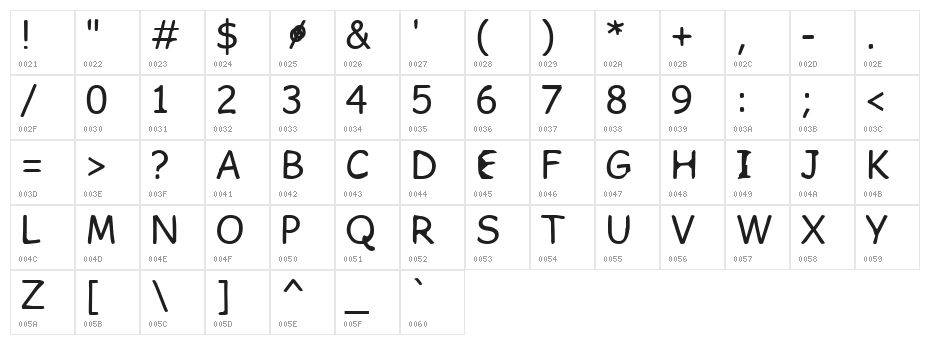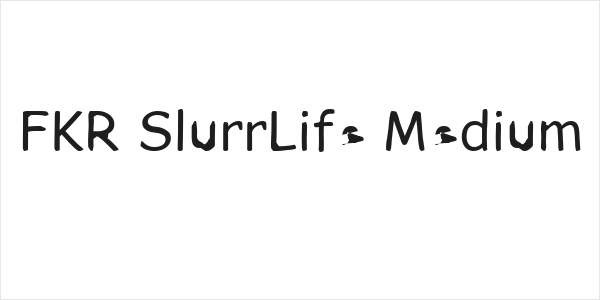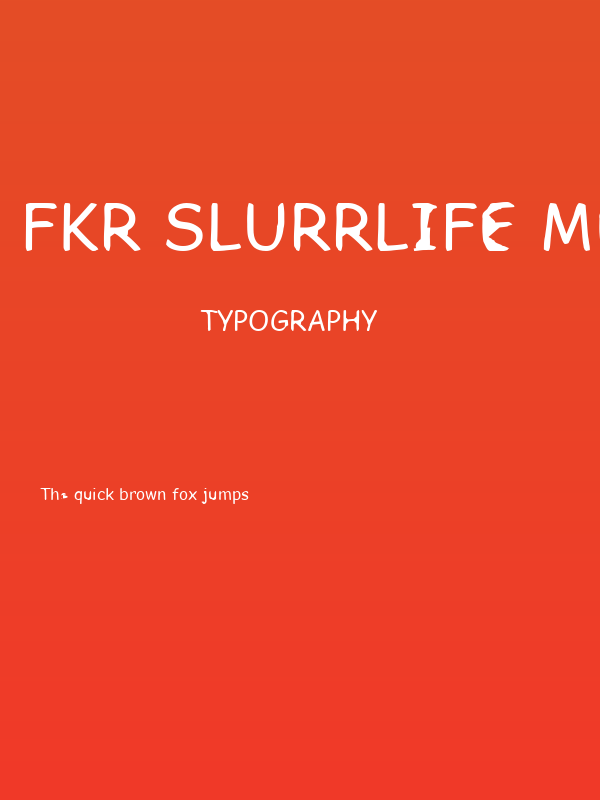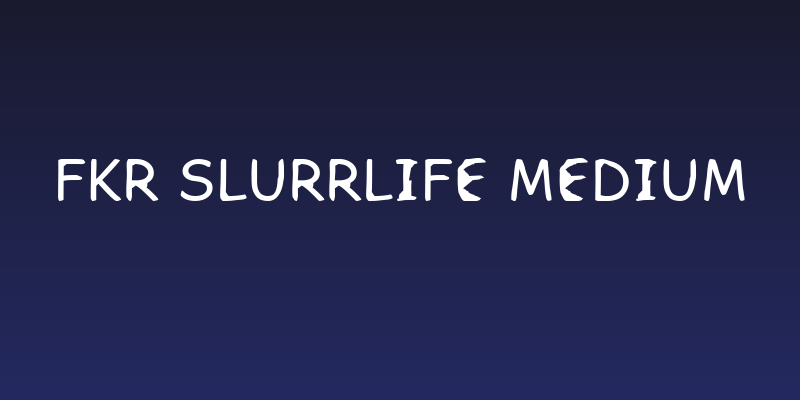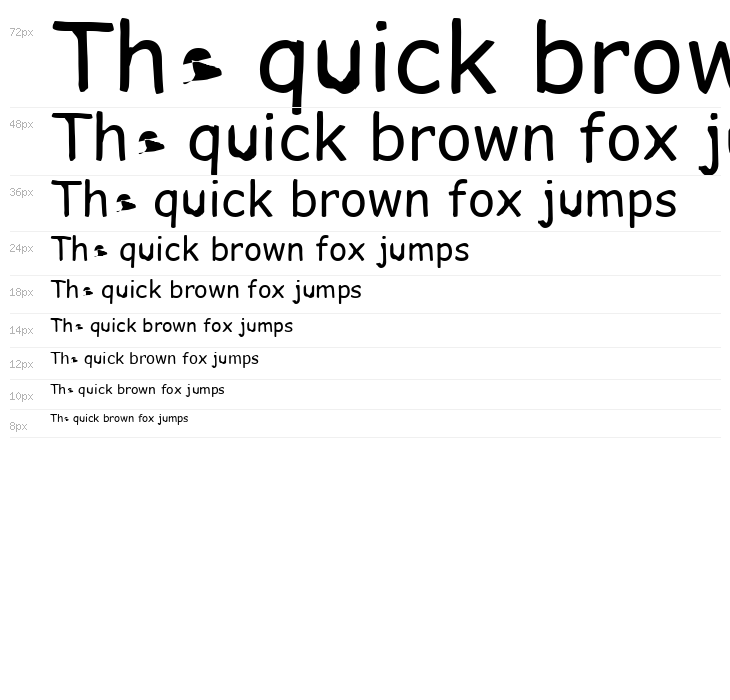
FKR SlurrLife Medium Font
FKR SlurrLife Medium Description
This font features a playful and slightly irregular design, characterized by its hand-drawn appearance. The letters have a casual, informal style with uneven strokes and varying thickness, giving it a whimsical and approachable feel. The uppercase letters are bold and prominent, while the lowercase letters maintain a consistent flow with subtle quirks in their shapes. The numerals are clear and legible, matching the overall style of the alphabet. Special characters are included, maintaining the same playful aesthetic. This font is suitable for projects that require a fun and engaging look, such as children's books, casual branding, or creative posters.
| Proposed Projects | Ideal for children's books, casual branding, creative posters, and playful designs. |